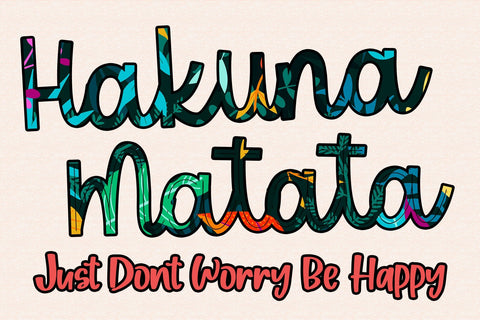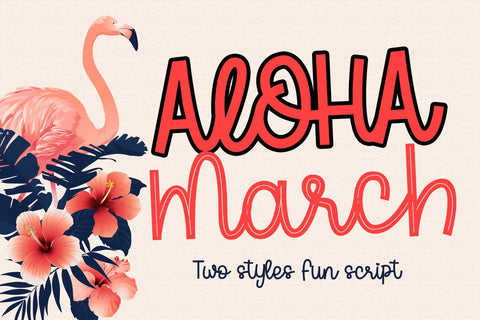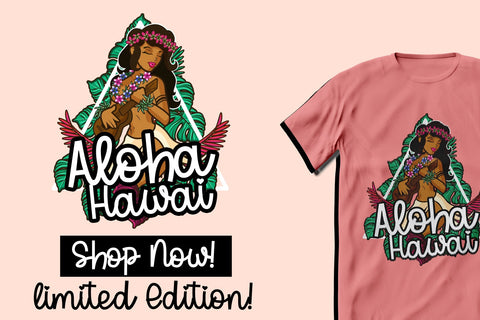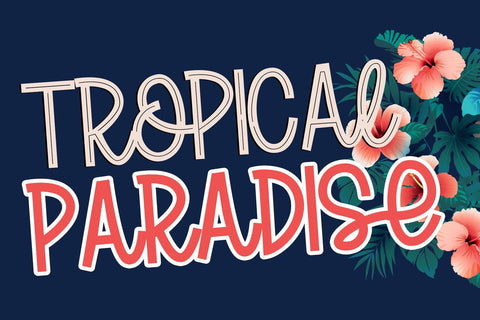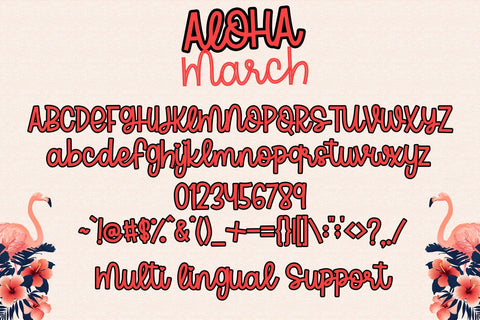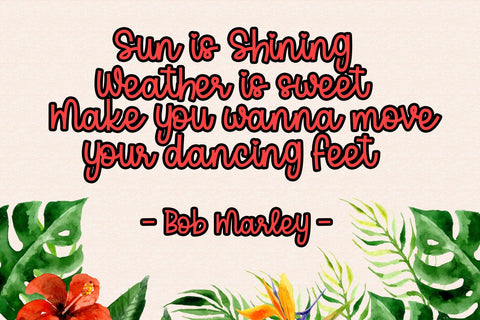
Aloha March
The Aloha March Fun Script Font is a vibrant and energetic typeface that captures the spirit of fun and liveliness. With its two distinct styles, this font offers versatility and allows you to infuse your titles and headlines with a playful and tropical vibe.
1. Two Playful Styles: The Aloha March font comes with two unique styles, providing you with options to suit different design needs. The first style is a bouncy and dynamic script font, while the second style features a Line look. Choose between the two styles or combine them to add variety and visual interest to your typography.
2. Fun and Energetic Design: The font's characters are carefully crafted to convey a sense of joy and excitement. The fluid lines, swooping curves, and expressive letterforms bring a lively and energetic feel to your titles and headings, making them visually captivating and attention-grabbing.
3. Versatile Application: This font is perfect for projects that require a touch of playfulness and a tropical theme. Use it in various design applications such as branding, packaging, social media graphics, invitations, posters, and more. The Aloha March font instantly adds a fun and vibrant personality to your designs.
4. Uppercase and Lowercase Letters: The font includes both uppercase and lowercase letters, giving you flexibility and creative freedom. Combine uppercase and lowercase characters to achieve unique and eye-catching typographic compositions.
5. Punctuation and Symbols: In addition to the alphabet, the font includes a comprehensive set of punctuation marks, numerals, and common symbols. This ensures consistency and ease of use when incorporating the font into your design projects.
Unleash the tropical fun and exuberance of the Aloha March Fun Script Font in your titles and headlines. With its two unique styles, this font offers endless possibilities for adding a playful and energetic touch to your designs, making them stand out with a delightful charm. Let your creativity soar and embrace the joyful spirit of Aloha March!